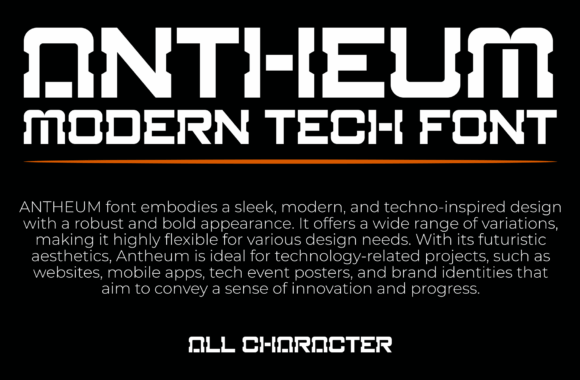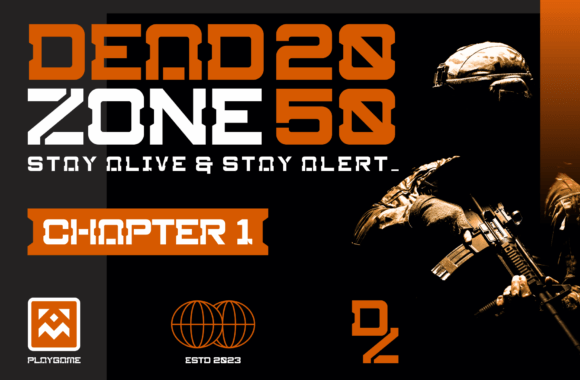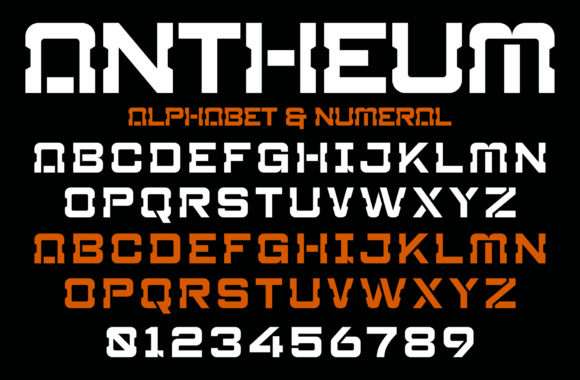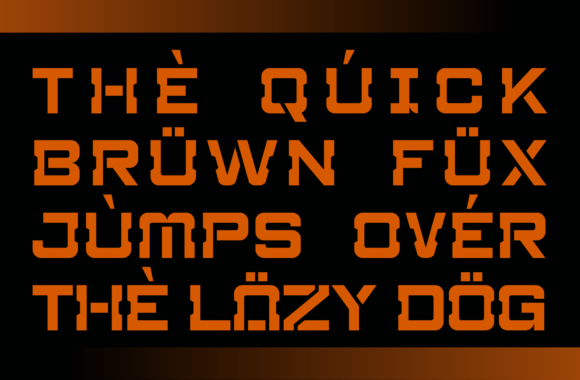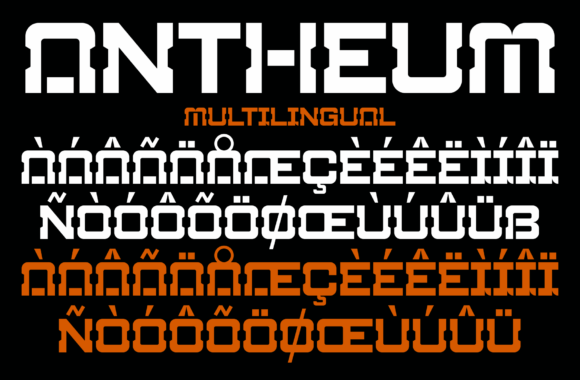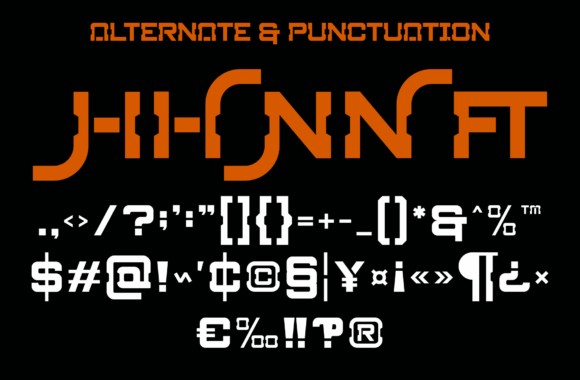
Introduction to Antheum Font Font
Fonts play a crucial role in design, and the Antheum Font font is a typeface that brings both character and versatility to any project. Whether you’re working on a branding project, a website, or a print design, the Antheum Font font offers a unique style that can elevate your work.
Antheum Font is a cool and futuristic typeface that gives your words a modern vibe.
With sleek lines and sharp edges, itβs perfect for tech-themed projects, logos, and designs that need a contemporary touch .
Key Features of Antheum Font Font
Why Choose Antheum Font Font?
The Antheum Font font is more than just a typeface β it’s a design tool that helps you communicate your message with style and clarity. Its unique character set and versatile design make it suitable for a wide range of applications, from elegant invitations to bold headlines.
With its carefully crafted letterforms and balanced proportions, the Antheum Font font ensures readability and visual appeal across all mediums.
What makes Antheum Font font special?
The Antheum Font font stands out with its unique design, exceptional readability, and versatility across various design applications.